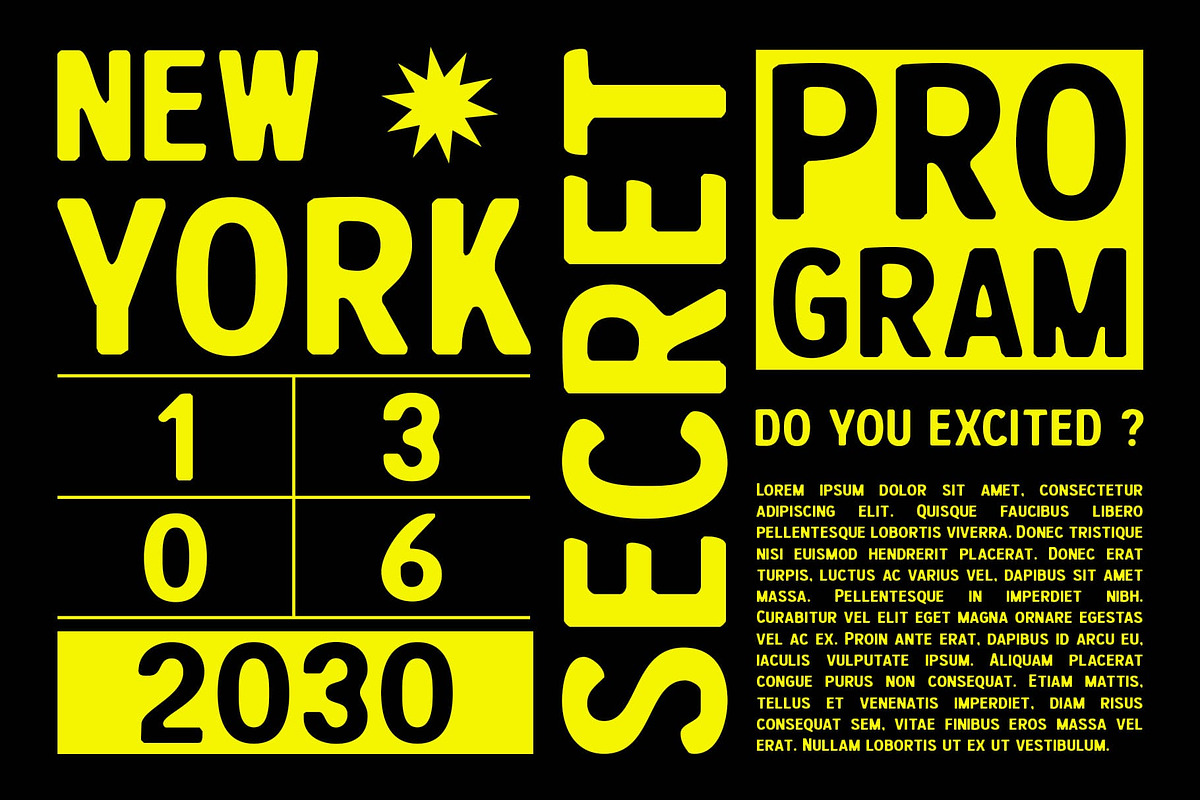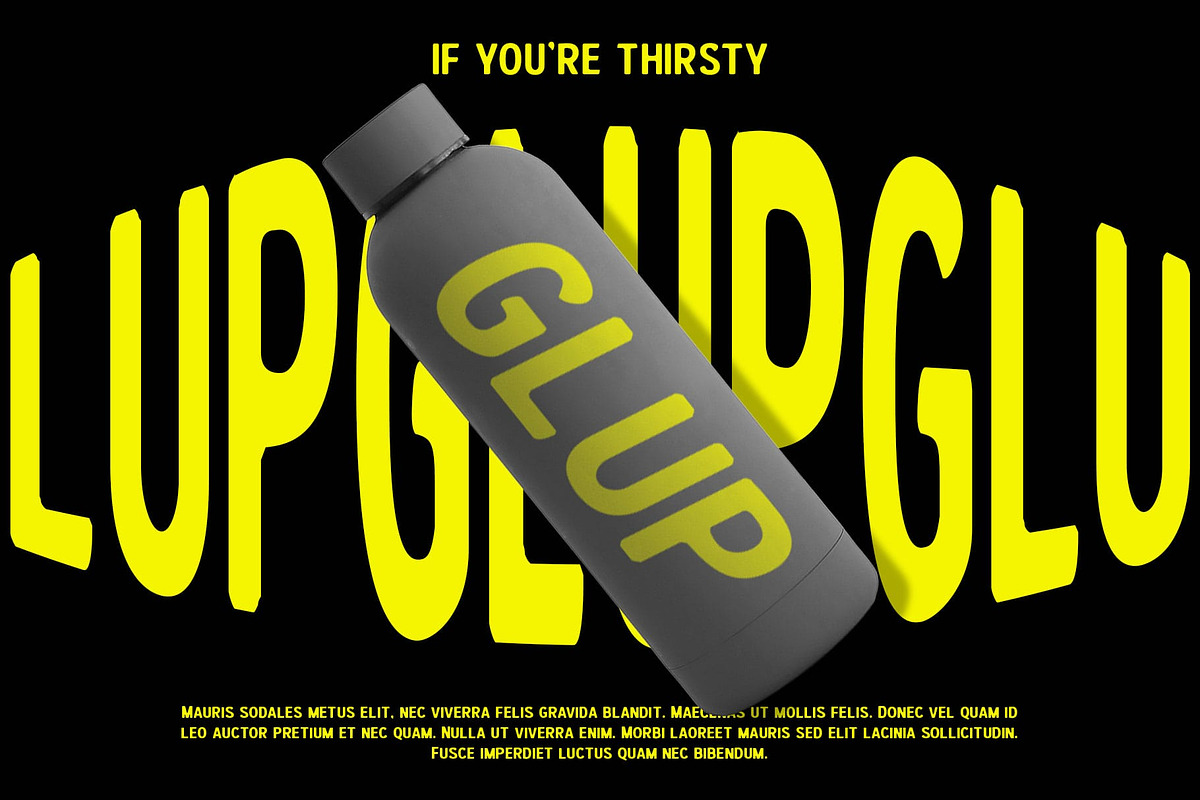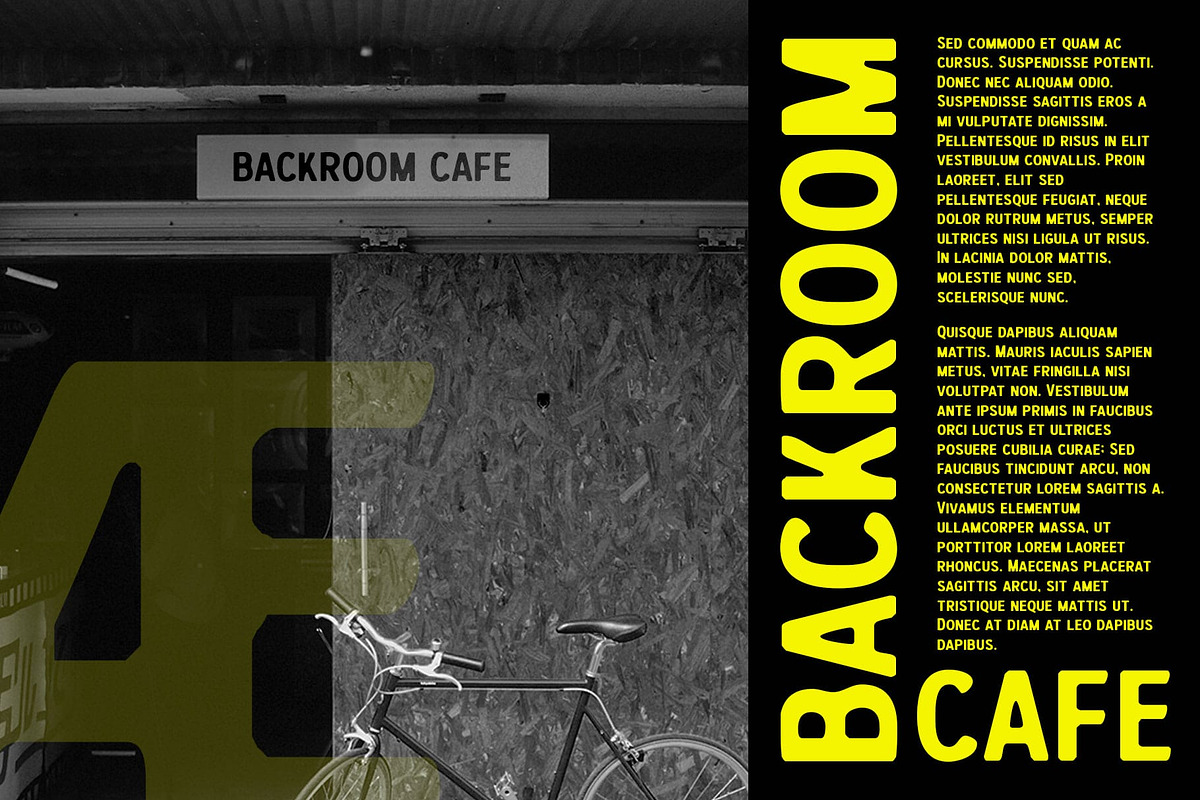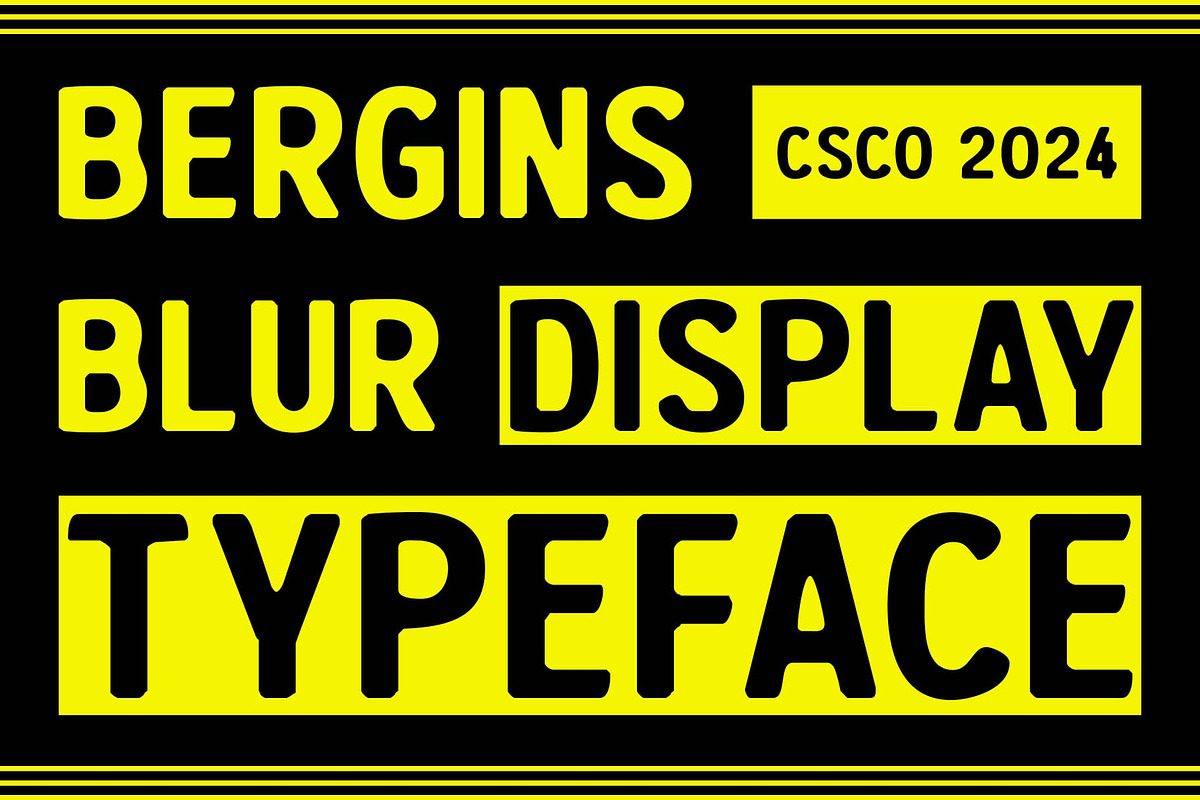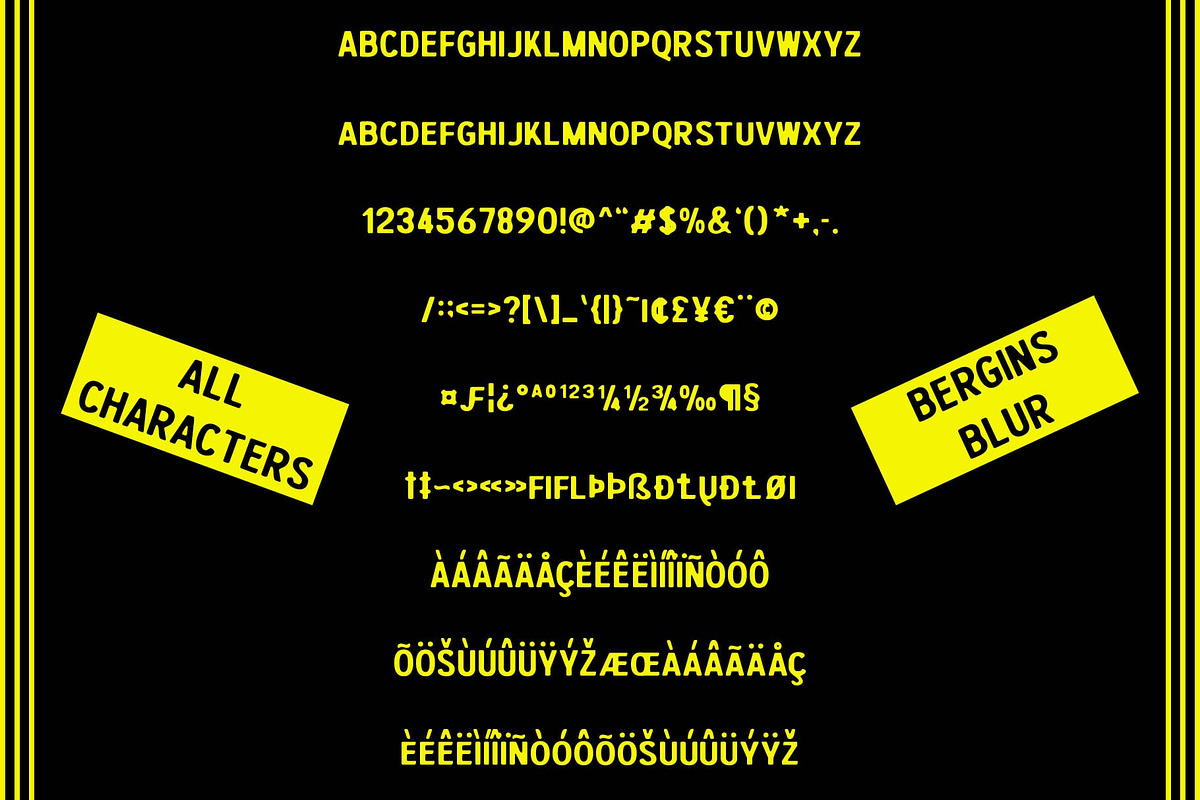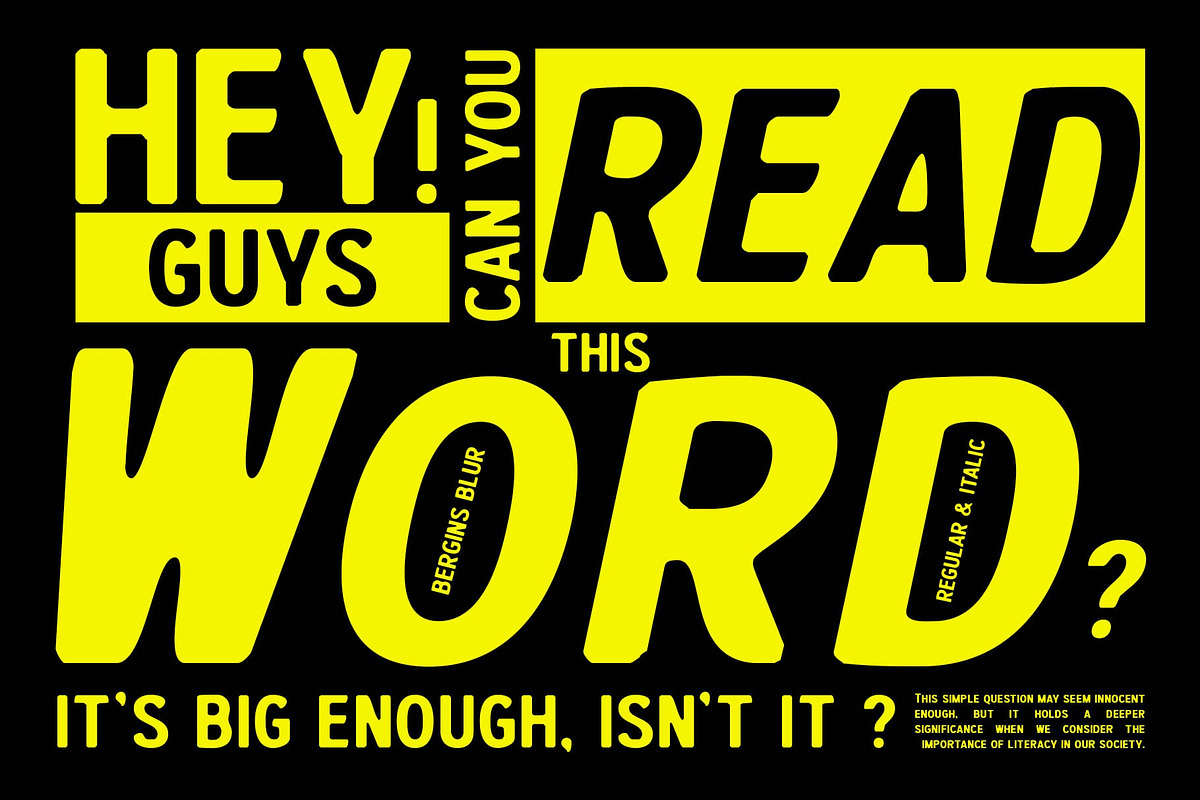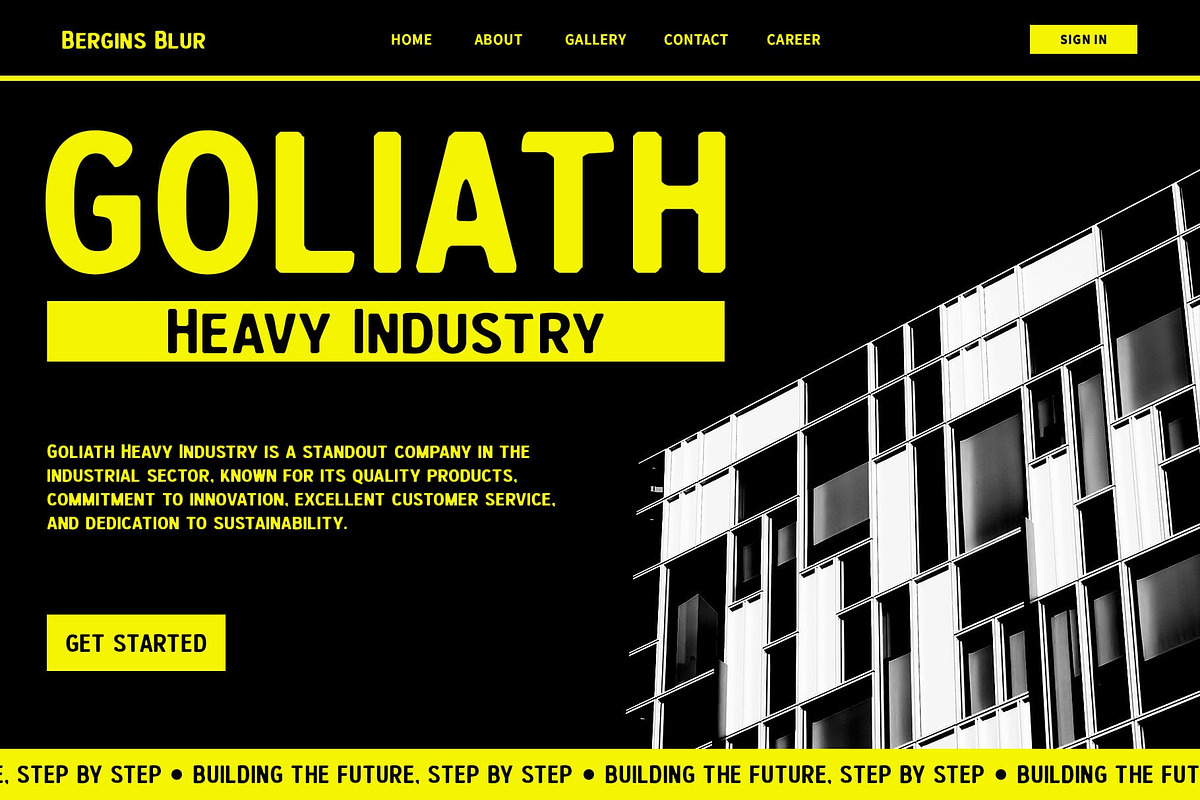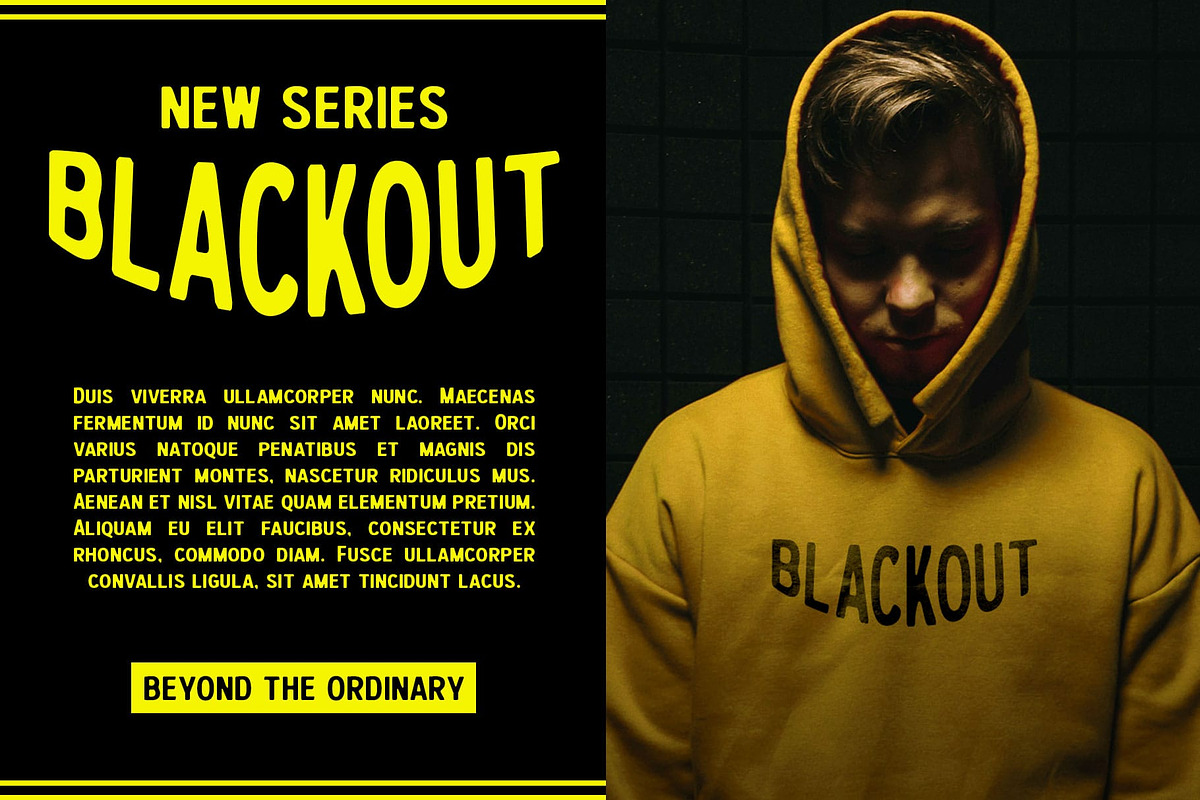
Bergins Blur
Bergins Blur: Embracing Modernity with a Blur
Condensed Sans-Serif Font with Blur Style
Bergins Blur is a condensed sans-serif font with a blur style, an ideal choice for various designs that seek a modern, unique, and attention-grabbing look. The blur design adds an artistic and dynamic touch, making it perfect for applications that require strong and distinctive visuals.
Perfect for Modern Designs
With its condensed form and blur style, Bergins Blur Font is perfect for projects that demand a modern and unique appearance. Whether used in web design, branding, or advertising, this font adds a sense of innovation and creativity to your designs.
Enhanced Visual Impact
Bergins Blur Font prioritizes visual impact, ensuring that your designs are both striking and memorable. Its blur style adds a dynamic and artistic element that captivates viewers, making it ideal for projects that aim to make a strong and distinctive impression.
Ideal for Attention-Grabbing Applications
Whether you’re designing a website header, creating a logo, or developing a promotional banner, this blurred font is the perfect choice for projects that require a modern and attention-grabbing look. Its unique style ensures that your designs will always stand out and leave a lasting impression.
Make a bold statement with Bergins Blur Font and add a touch of artistic flair to your designs.
- Bergins Blur Regular
- Bergins Blur Italic